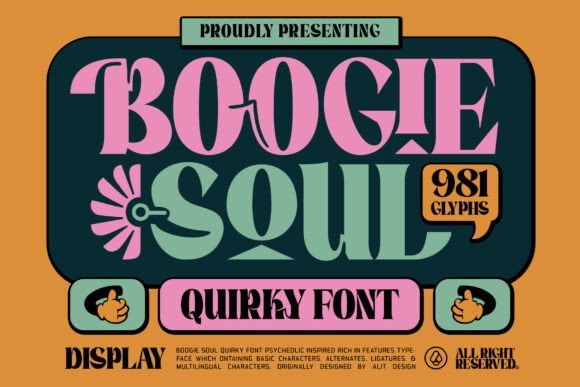
Get Ready to Groove with the Boogie Soul Font
Do you remember the rush of excitement when you stumbled upon the perfect font for your design project? Maybe it was that one typeface that seemed to capture the essence of your brand’s personality, or perhaps it was the font that made your message pop and stand out from the crowd. Whatever it was, you know that feeling – and that’s exactly what the Boogie Soul Font is here to give you.
This stunning typographic creation is a time machine that takes you back to the free-spirited energy of the 1960s and the funky bold aesthetics of the 1970s. With its high-contrast strokes and liquid curves, the Boogie Soul Font is a complete design system that’s packed with personality, quirkiness, and pure “soul.” Whether you’re designing a band poster, a streetwear brand, or a playful logo, this font is sure to bring your message to life.
Boogie Soul Font Key Features
- Font Family: Boogie Soul Font is a unique, hand-drawn font designed to evoke the spirit of the 1970s.
- Character Count: The font contains a wide range of characters, including uppercase and lowercase letters, numbers, and punctuation marks.
- Unique Characteristics: Boogie Soul Font features a distinctive, hand-drawn style with bold lines and playful flourishes, making it perfect for creating eye-catching designs.
Boogie Soul Font Review
As a designer, I was excited to dive into the “Boogie Soul Font” and see what it had to offer. On the surface, this font is a fun and lively choice that’s perfect for projects that need a little extra personality. ✨
- Unique flair: Boogie Soul Font brings a fresh and quirky feel to any design.
- Clean lines: Despite its playful nature, the font still maintains clean lines and a clear structure.
- Customization options: The font offers a range of styles and weights, giving designers plenty of room to experiment.
However, as with any font, there are some limitations to consider. ⚠️
- Not ideal for body text: Due to its quirky nature, Boogie Soul Font may not be the best choice for large blocks of text.
- Limited legibility: At smaller font sizes, some letters may become difficult to read.
Overall, I think Boogie Soul Font is a great choice for designers who want to add some personality to their projects. While it may not be the best fit for every project, it’s a fun and versatile font that’s worth exploring. With some careful consideration and use, Boogie Soul Font can add a unique touch to your designs.
Tip: Use the Boogie Soul Font to add a touch of vintage flair to your designs, such as posters, flyers, and social media graphics.
Tip: Use the Boogie Soul Font to create custom typography for your brand, such as logos and business cards.
Tip: Use the Boogie Soul Font to add a touch of personality to your presentations and documents.
The Boogie Soul Font is ideal for:
- Vintage-themed designs
- Music and entertainment projects
- Custom typography for brands
- Posters, flyers, and social media graphics